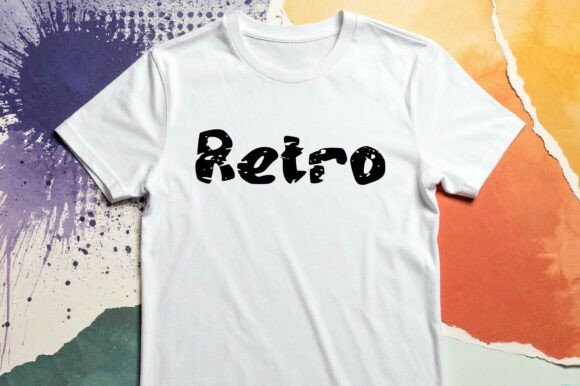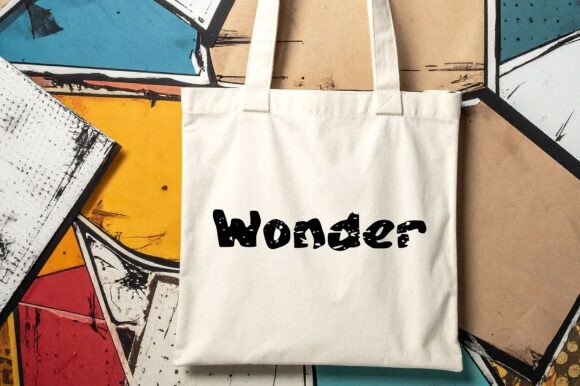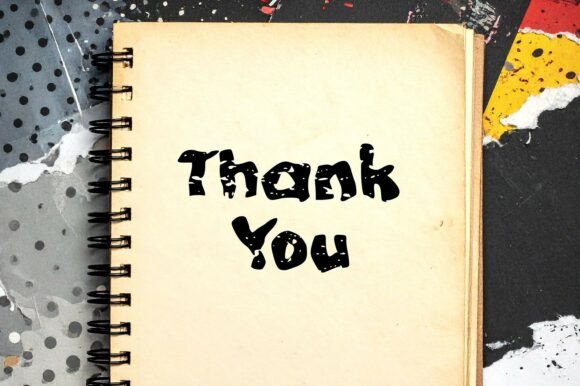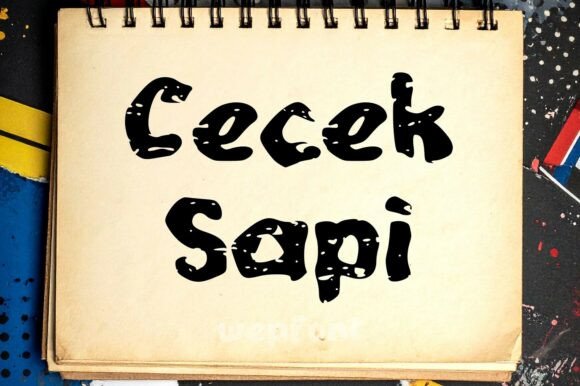
Meet Cecek Sapi: The Unconventional Display Font That’s Stealing Hearts
Are you tired of using the same old fonts that lack personality and flair? Look no further than Cecek Sapi, a captivating display font that’s bursting with unconventional charm. This hand-drawn font is designed to add a touch of playfulness and whimsy to your designs, making it perfect for creative projects that demand a unique and artistic vibe.
The Unique Characteristics of Cecek Sapi
Cecek Sapi features whimsically inflated letters with a tactile, natural finish that gives it a distinctly handcrafted feel. The font’s rounded letterforms pulsate with an engaging allure, making it a font with irresistible charisma. The incorporation of raw textures, audacious inconsistencies, and varying stroke widths adds to the font’s handcrafted appeal, setting it apart from sterile digital designs.
What Makes Cecek Sapi So Versatile?
Cecek Sapi’s dynamism makes it an excellent choice for a wide range of creative projects. Whether you’re designing laid-back clothing, enchanting children’s books, or jazzing up unconventional cafes, bakeries, or handicrafts, this font is sure to bring your vision to life. Its playful approachability and unique character make it an ideal font for capturing an affable, artistic, or youthful vibe.
The Benefits of Using Cecek Sapi
So, what sets Cecek Sapi apart from other fonts? Here are just a few benefits of using this exceptional display font:
- Unique Personality: Cecek Sapi has a one-of-a-kind personality that screams innovation, authenticity, and humor.
- Handcrafted Appeal: The font’s raw textures, audacious inconsistencies, and varying stroke widths give it a distinctly handcrafted feel.
- Playful Approachability: Cecek Sapi’s whimsically inflated letters and rounded letterforms make it perfect for designs that require a playful and approachable vibe.
- Versatility: This font is suitable for a wide range of creative projects, from branding and advertising to children’s books and clothing designs.
How to Use Cecek Sapi in Your Designs
Ready to add Cecek Sapi to your design arsenal? Here are a few tips on how to make the most of this exceptional font:
- Pair it with contrasting fonts: Combine Cecek Sapi with simpler fonts to create visual interest and emphasize key messages.
- Experiment with colors: Cecek Sapi looks great in bold, bright colors, but it can also be used in more muted tones to create a softer look.
- Play with textures: Take advantage of Cecek Sapi’s raw textures and experiment with different backgrounds and overlays to add depth to your designs.
Cecek Sapi is more than just a font – it’s a conversation starter. With its unique personality, handcrafted appeal, and playful approachability, this exceptional display font is sure to elevate your designs and leave a lasting impression. Whether you’re a designer, crafter, or artist, Cecek Sapi is an excellent addition to your creative toolkit. So why settle for ordinary fonts when you can make a statement with Cecek Sapi?